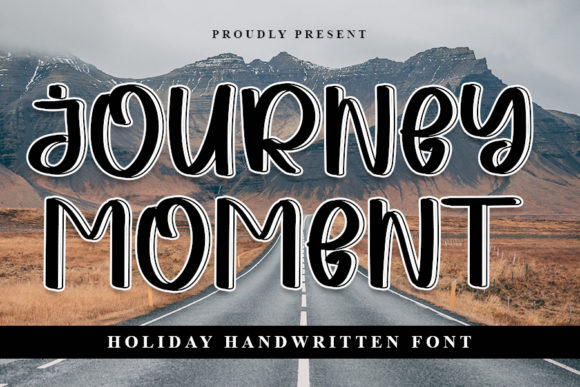
Feast your eyes on the Journey Moment Font, a captivating display font that will add a touch of charm and playfulness to your projects. Crafted with meticulous attention to detail by NYA Letter, this font family offers a delightful blend of fun, boldness, and individuality.
Journey Moment is not just a font; it's an invitation to embark on a creative expedition, where your designs take center stage. Let your imagination soar as you explore the endless possibilities it presents. Whether you're creating farmhouse signs, cheerful invitations, playful branding materials, or eye-catching social media posts, Journey Moment will be your steadfast companion, adding a dash of whimsy and character to every letter.
With its bold, quirky strokes, Journey Moment instantly grabs attention, making it perfect for headlines or pull quotes that demand to be noticed. Its playful nature shines through in the curves and flourishes, evoking a sense of joy and warmth. The open counters and carefully crafted serifs add a touch of elegance, ensuring your designs exude both charm and sophistication.
Immerse yourself in the versatility of Journey Moment. Its wide range of applications makes it a must-have for any designer's toolkit. From creating captivating posters and flyers to designing eye-catching logos and branding elements, Journey Moment is your go-to font for adding a touch of fun and playfulness.
With Journey Moment, you'll never be short of inspiration. It seamlessly blends with other fonts, allowing you to create captivating contrasts and harmonious combinations. Experiment with different color palettes and backgrounds to discover new dimensions of creativity.